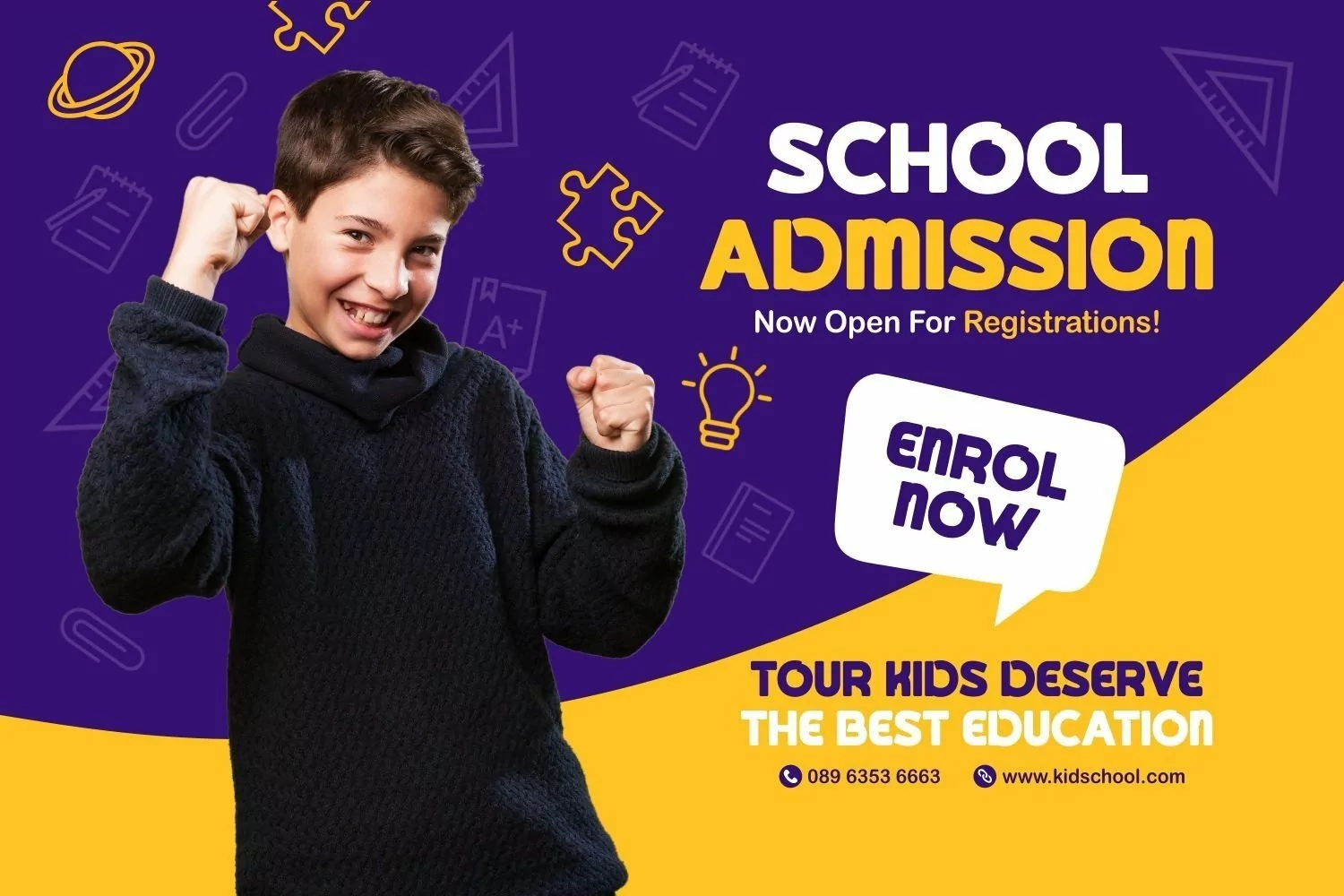
Goshbumb is a bold san serif display come with playful themes. We wanted to create the most unique characters shape. It matches applies in some designs such as the logotype, brand, packaging, quotes, poster, kids shirt, cover book, birthday invitation and more custom design. The features uppercase, lowercase, numeral, punctuation & symbol, multilingual support, PUA encoded (fully accessible without additional design software).